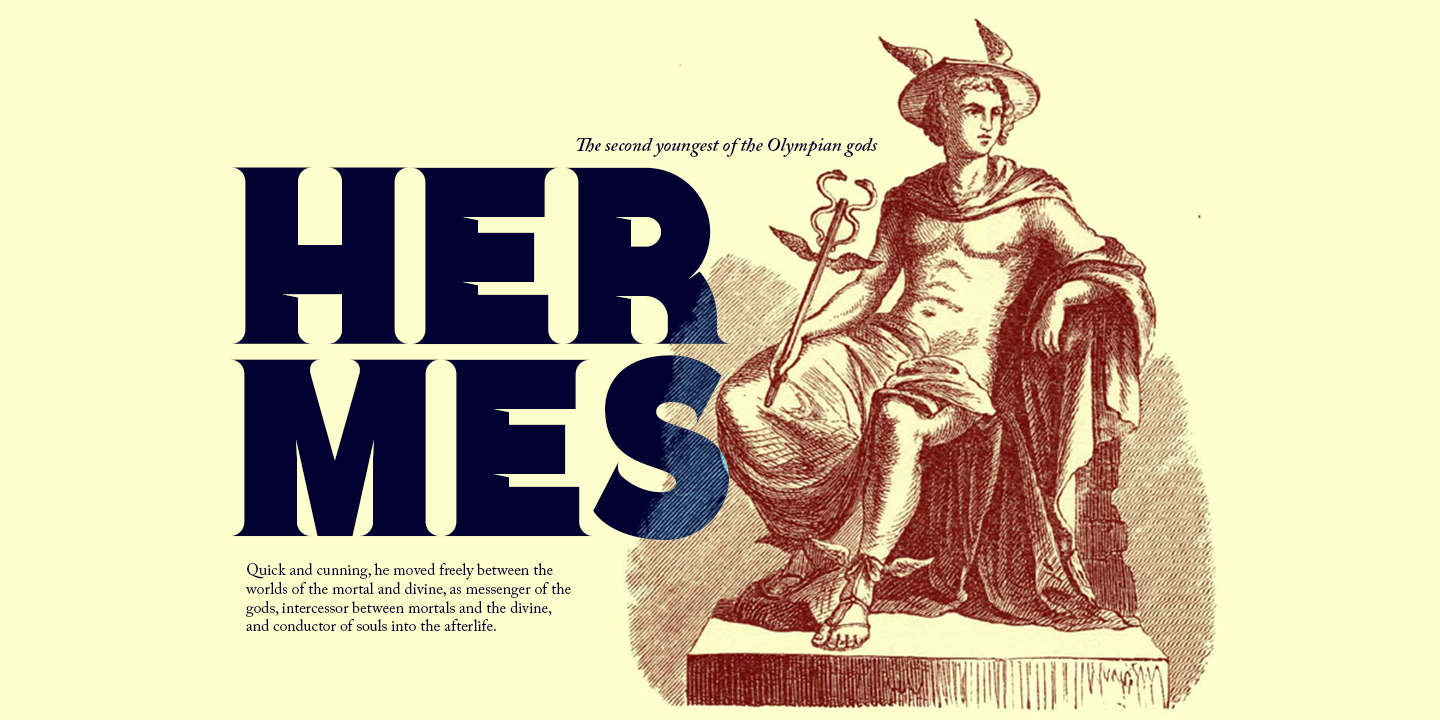
The Essay Font is typically a classic and highly readable serif typeface, designed to emulate the clear, authoritative, and often academic aesthetic found in traditional scholarly and literary works. Its well-balanced proportions and comfortable letter spacing make it an excellent choice for extended reading. Imagine Essay Font providing a refined and trustworthy look for academic papers, legal documents, or well-researched articles. It's also incredibly effective for professional reports, corporate communications, and digital publishing platforms where clarity and a sense of gravitas are paramount. If your project demands a typeface that conveys intellectual rigor, credibility, and ease of reading for lengthy texts, the Essay Font is an ideal selection.
What makes the Essay Font so exciting? Its appeal lies in its inherent ability to foster concentration and facilitate long-form reading. This font is crafted to be unobtrusive, allowing the reader to focus on the content rather than the typography itself. It carries a subtle elegance that elevates the perceived value and seriousness of the written material. The Essay Font communicates a sense of scholarly integrity, traditional values, and meticulous attention to detail. It's a typeface that encourages thoughtful engagement with information, providing a stable and reliable visual foundation for any serious publication or document.
The Essay Font family typically offers a range of standard weights and styles essential for academic and professional typesetting. While it might not have the eccentric variations of display fonts, you can generally expect to find crucial styles such as Essay Regular, Essay Italic, Essay Bold, and sometimes Essay Semibold or Essay Light. These variations are vital for creating clear typographic hierarchies, allowing you to emphasize key points, differentiate between main text and citations, and enhance overall readability without disrupting the flow of the document. The traditional yet clean design of the Essay Font ensures it remains a timeless and effective choice for conveying information with clarity and authority. For your projects, remember to utilize the Essay Font Free Download for initial testing and ensure proper licensing for all commercial applications.